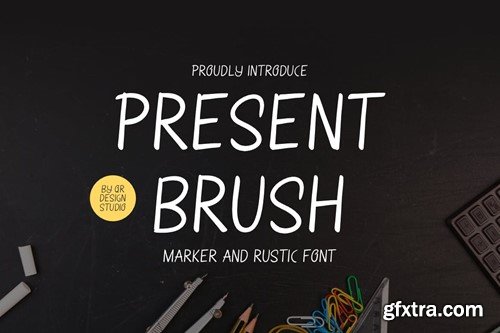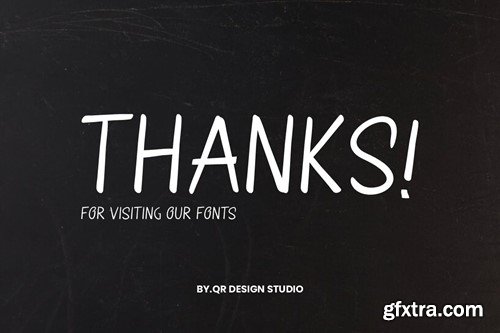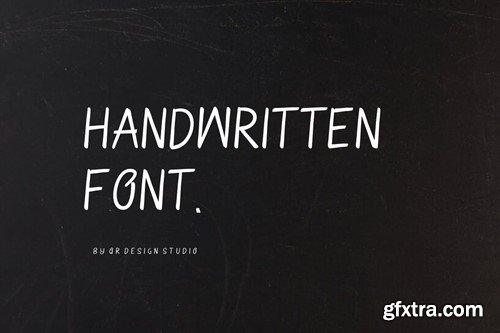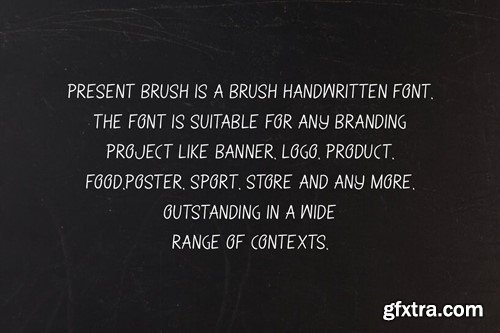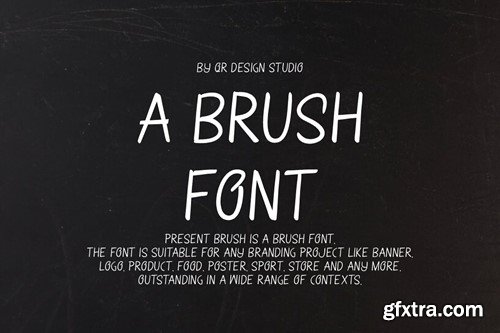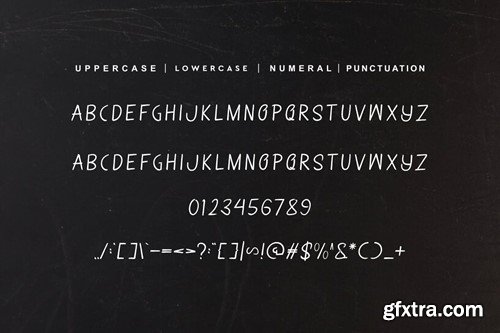
现刷 - 标记 & 乡村字体 GNJTV98
Present Brush - Marker & Rustic Font GNJTV98
Present Brush - Marker & Rustic Font
Present Brush Font is a hand drawn and authentic display font. The font is suitable for any branding project like food, poster, logo, sport, and many more. Outstanding in a wide range of contexts.